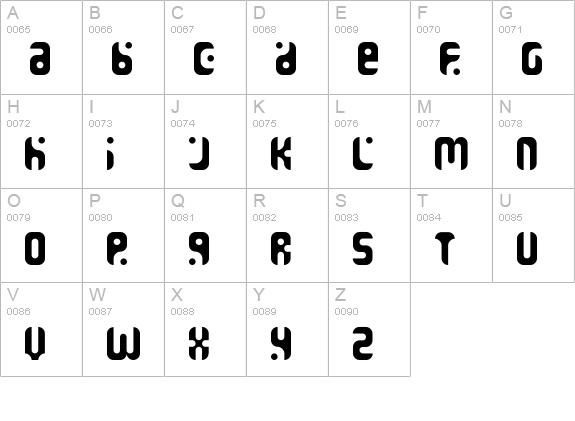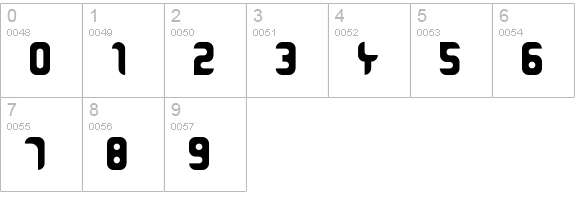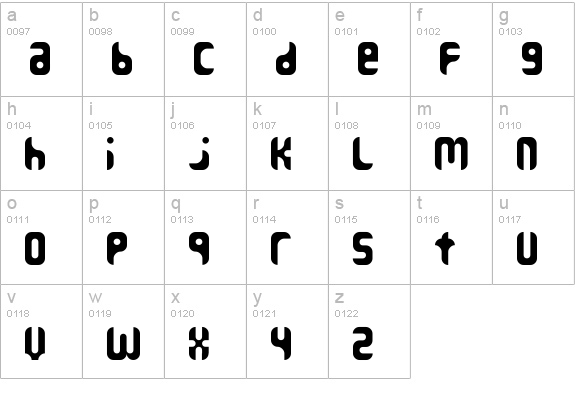
Amina Font Details
Amina font is a beautifully crafted typeface that exudes elegance and sophistication. Its sleek lines and modern design make it perfect for a wide range of design projects, from branding to editorial design. The versatility of Amina font allows it to be used in both digital and print mediums, making it a valuable addition to any designer's toolkit. What sets Amina font apart is not only its stunning aesthetics but also the fact that it is available for free download at FontsMarket.com. This means that designers and creatives can access this high-quality typeface without any cost, making it an accessible and versatile option for all types of projects. Whether you're working on a logo, website, or print advertisement, Amina font will help you achieve a polished and professional look. Its clean and contemporary style will elevate your designs and make them stand out from the crowd. Download Amina font for free today and discover the endless possibilities it offers for your creative projects.